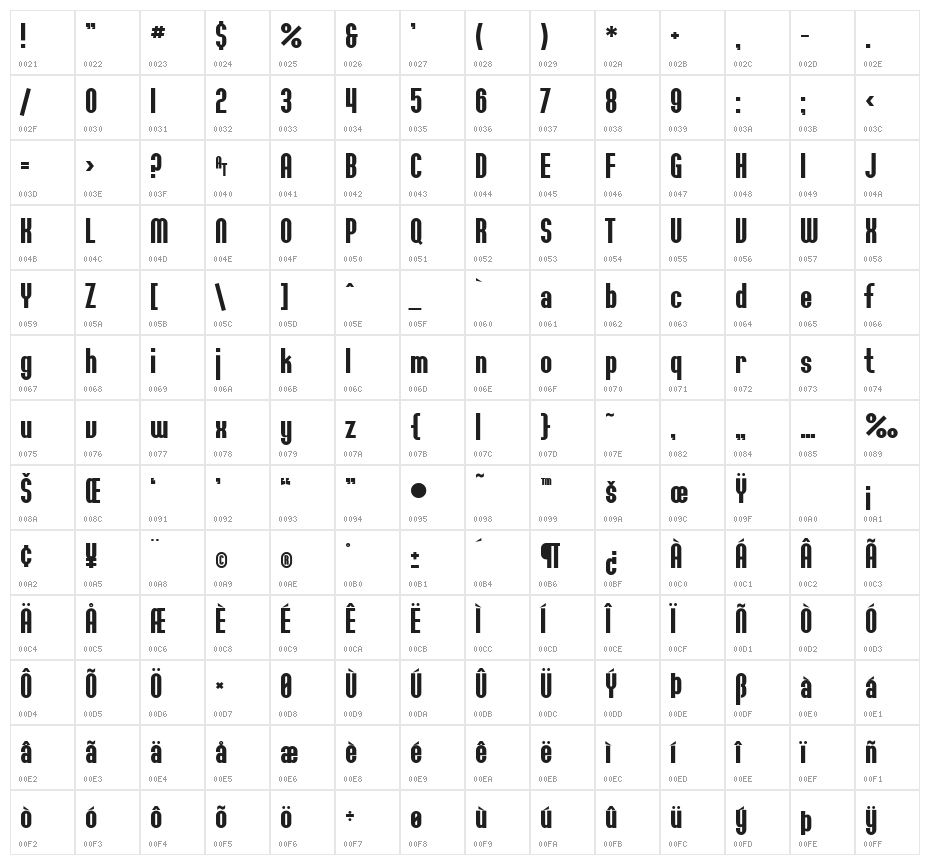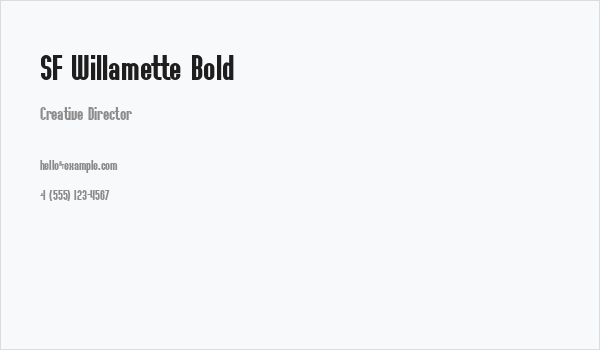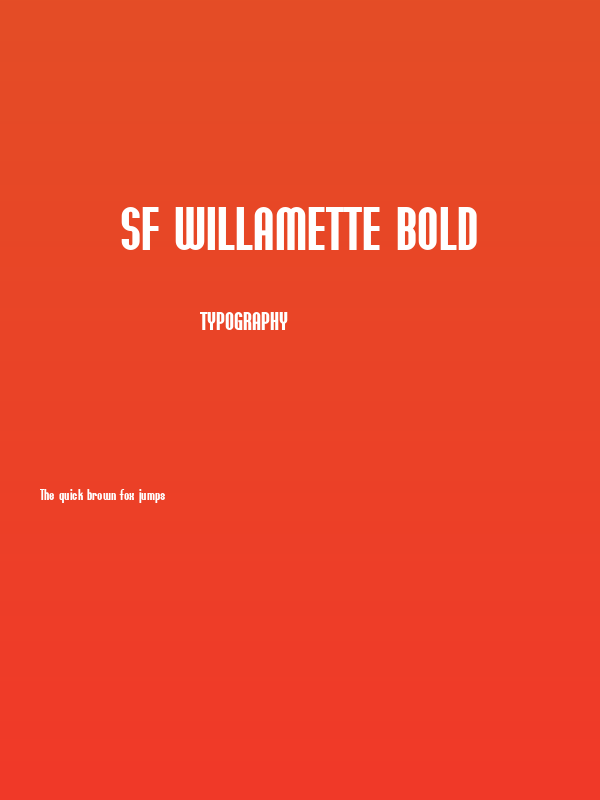
SF Willamette Bold Font
SF Willamette Bold Description
This bold typeface features a strong, impactful design with thick, uniform strokes that convey a sense of authority and presence. The characters are tall and slightly condensed, giving them a compact appearance that maximizes space while maintaining readability. The uppercase letters are particularly striking, with a geometric structure that emphasizes vertical lines. The lowercase letters complement the uppercase with a similar boldness and clarity. Numbers and special characters are designed to match the overall aesthetic, ensuring consistency across all text elements. This font is ideal for making a statement in any design project.
| Proposed Projects | Ideal for headlines, posters, branding, and any design requiring a strong visual impact. |